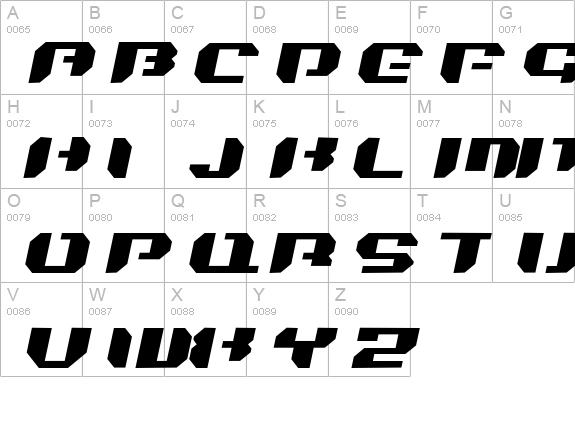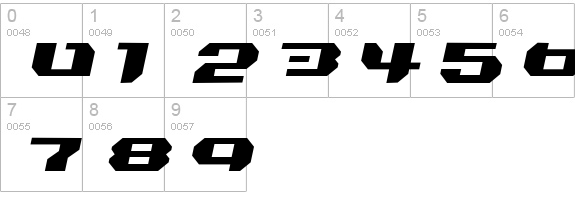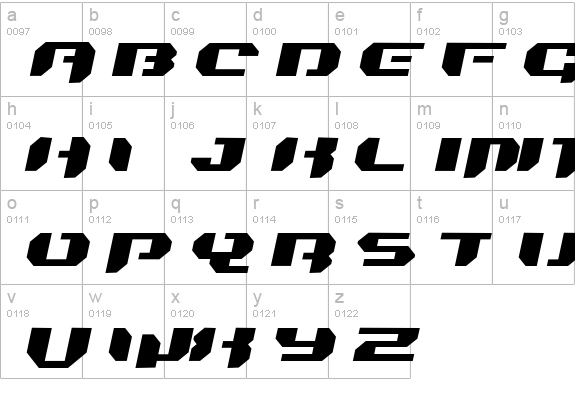
Bionic Kid Simple Slanted Font Details
Bionic Kid Simple Slanted font is a modern and stylish typeface that exudes creativity and playfulness. Its sleek and slanted design gives it a unique edge, making it perfect for a variety of design projects. The font is free to download at FontsMarket.com, allowing users to easily access this eye-catching typeface for their personal and commercial use. With its clean lines and contemporary feel, Bionic Kid Simple Slanted font is sure to make a bold statement in any design application. Let your creativity shine with this free and versatile font option!